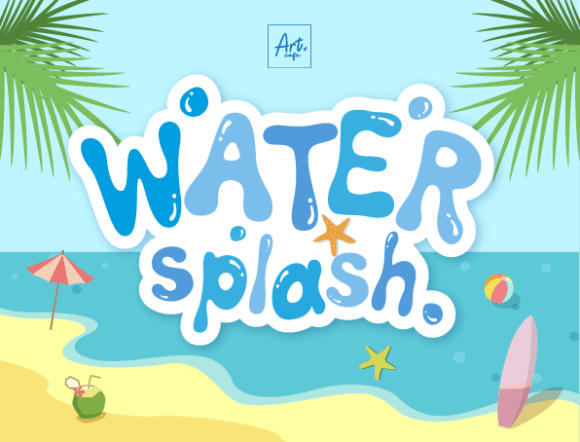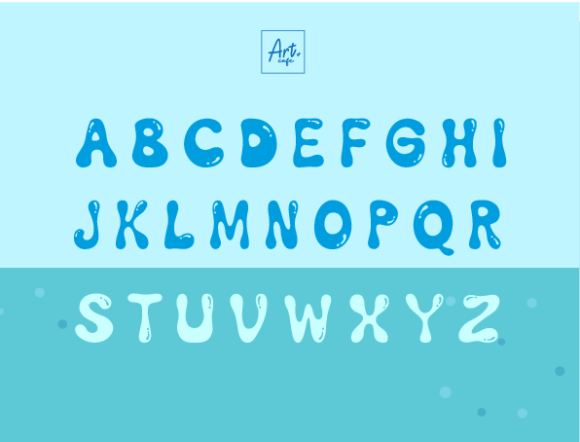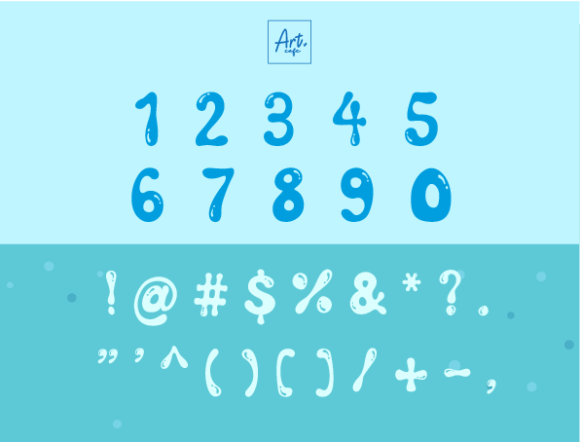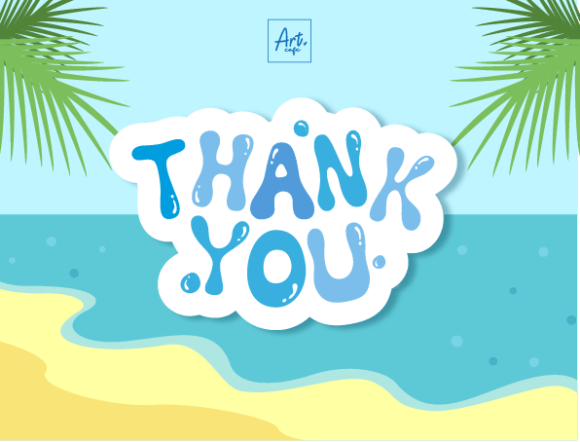
Water Splash Font
Introducing Water Splash, a uniquely crafted display font that perfectly encapsulates the spirit of aquatic designs. This font is the essence of the pristine pool waters, the deep enigmatic sea, the liberating beach waves, and even the bewitching beauty of Songkran Festival. Whether you’re cherishing the water’s tranquility or capturing its unrestrained motion, Water Splash is the ideal choice that embraces all elements of water in its stunning glyphs.